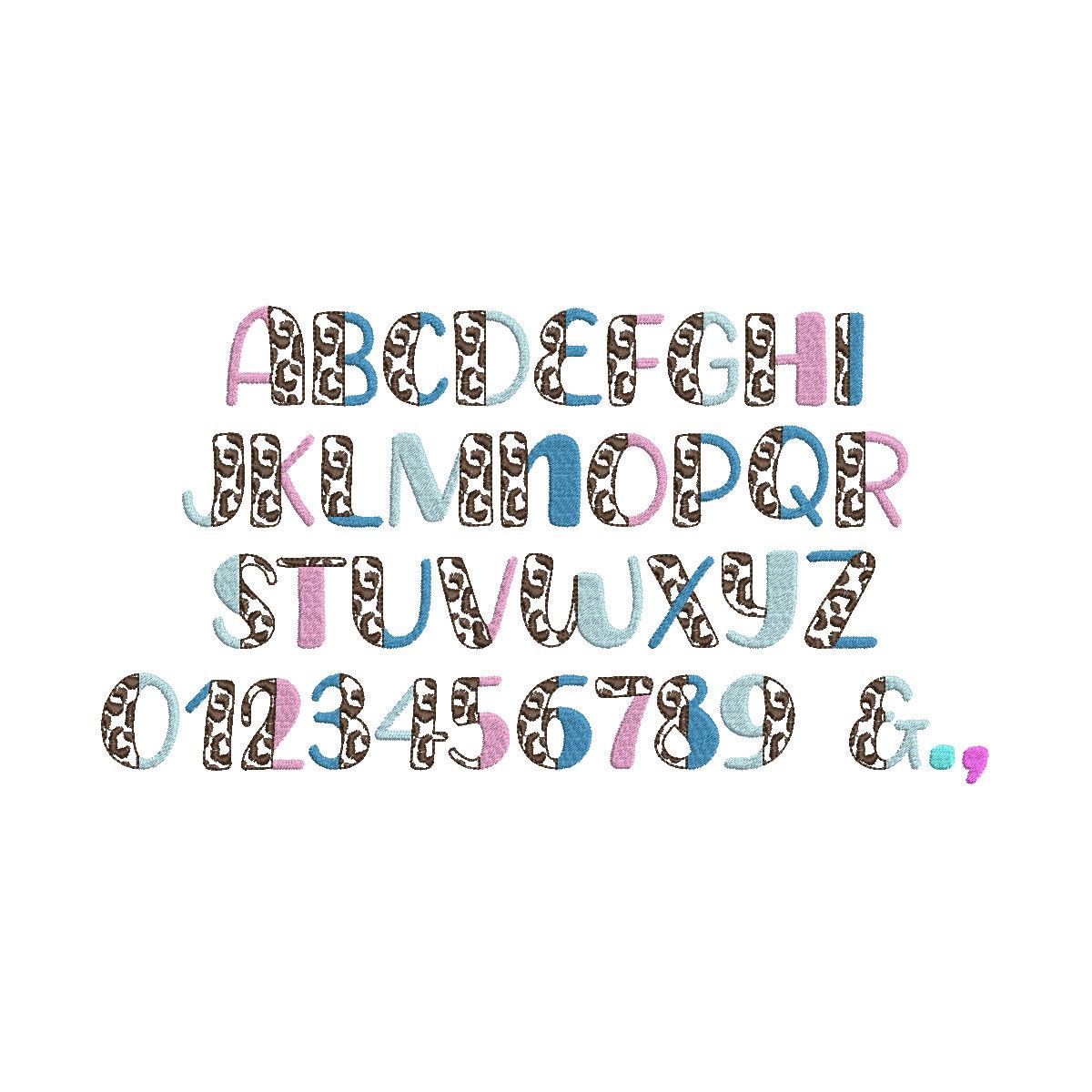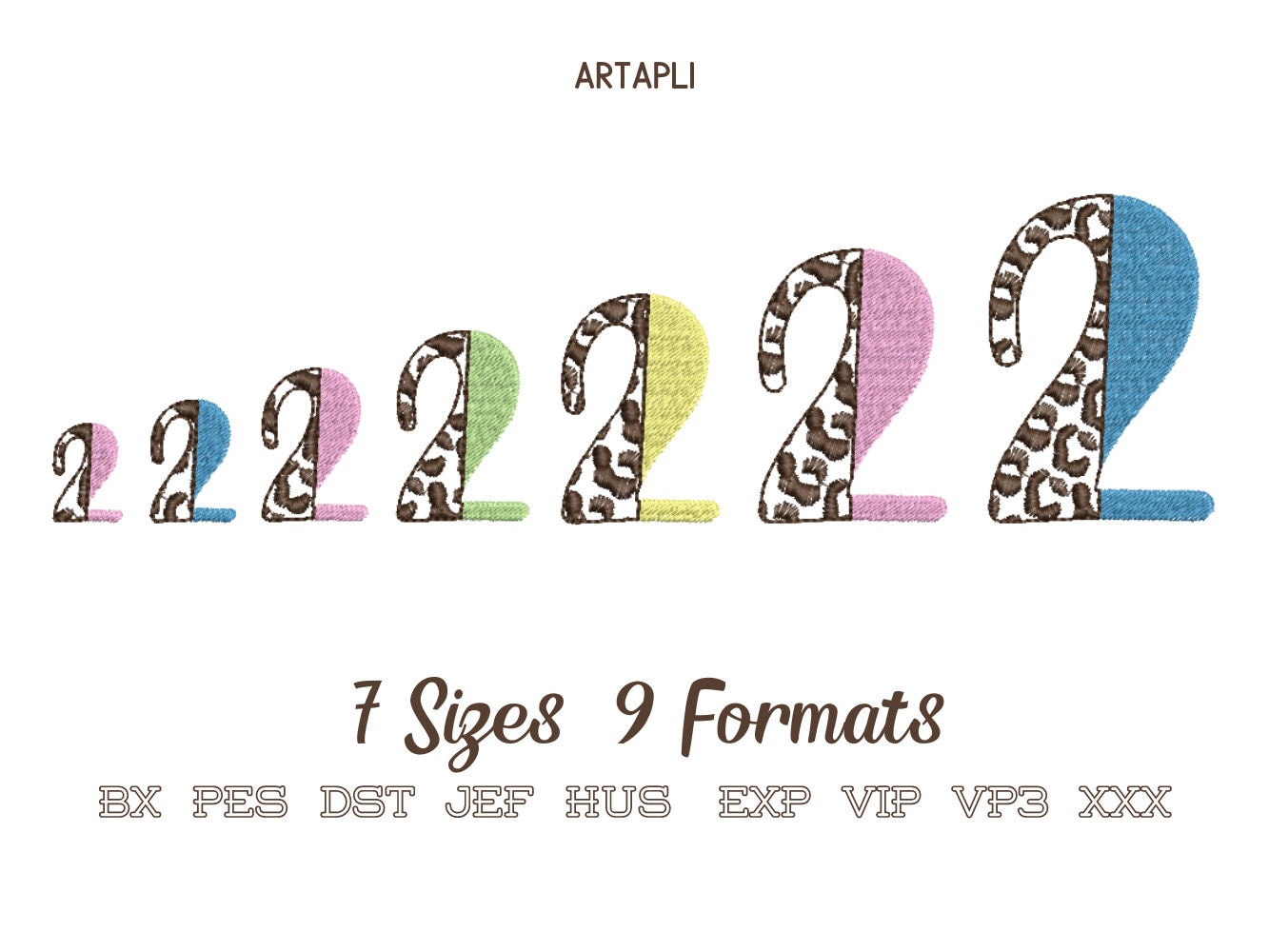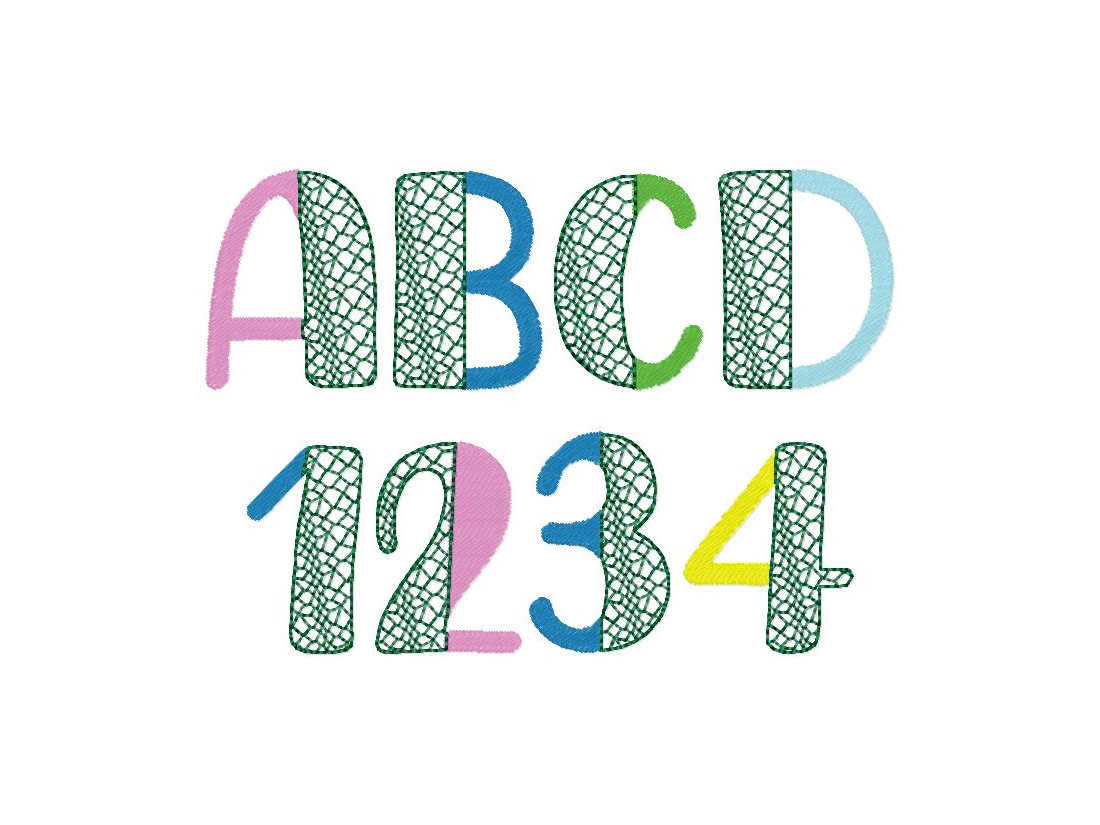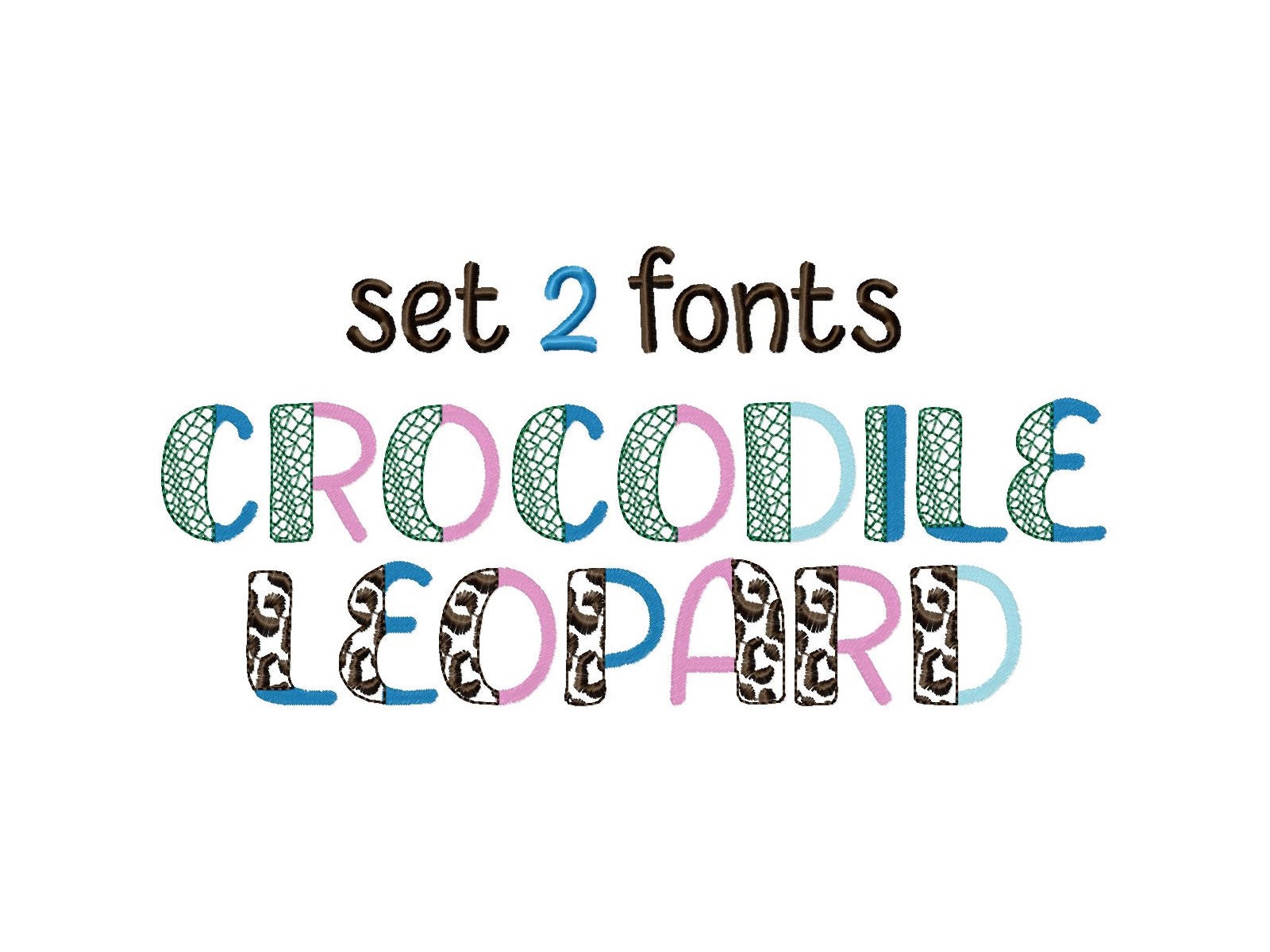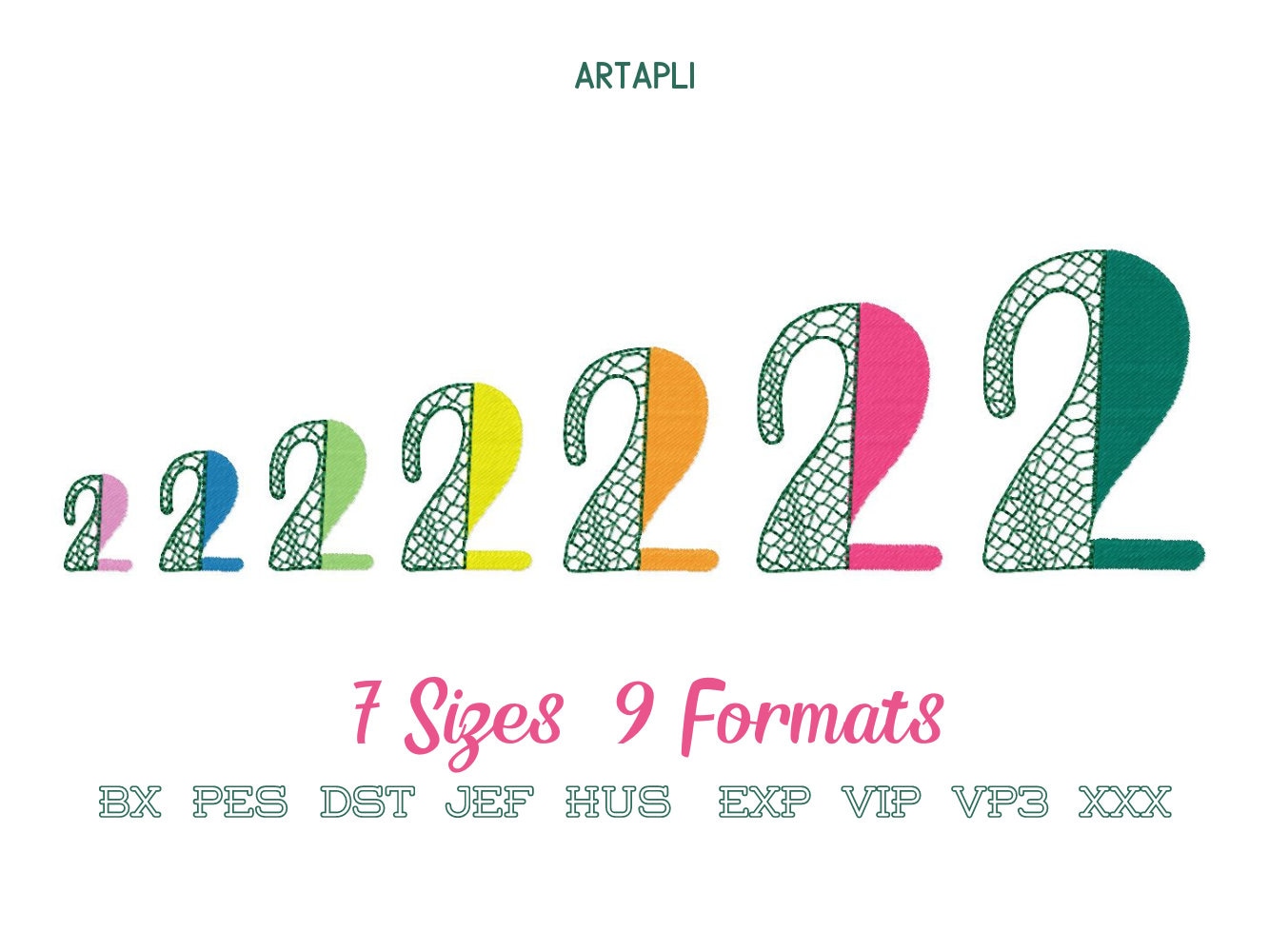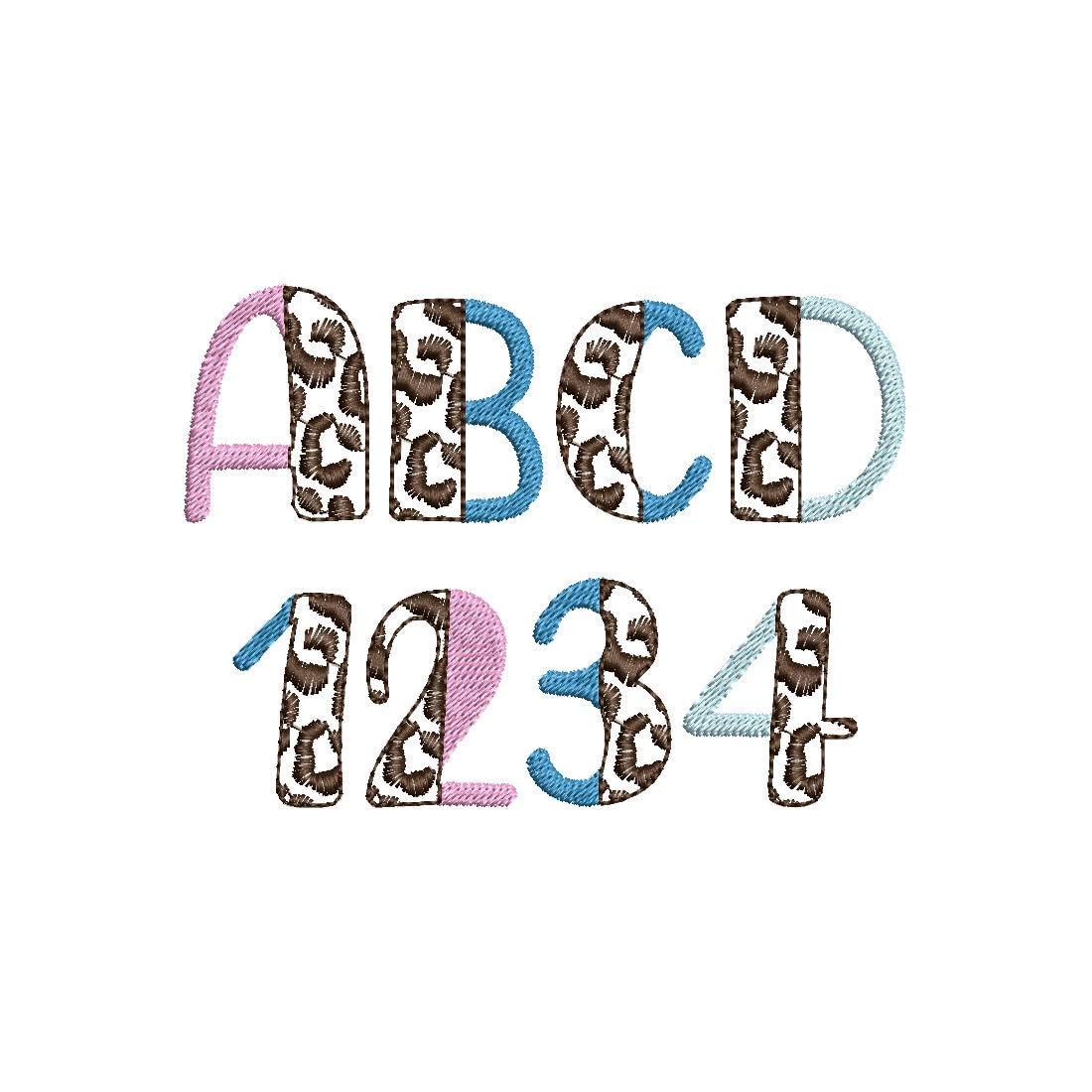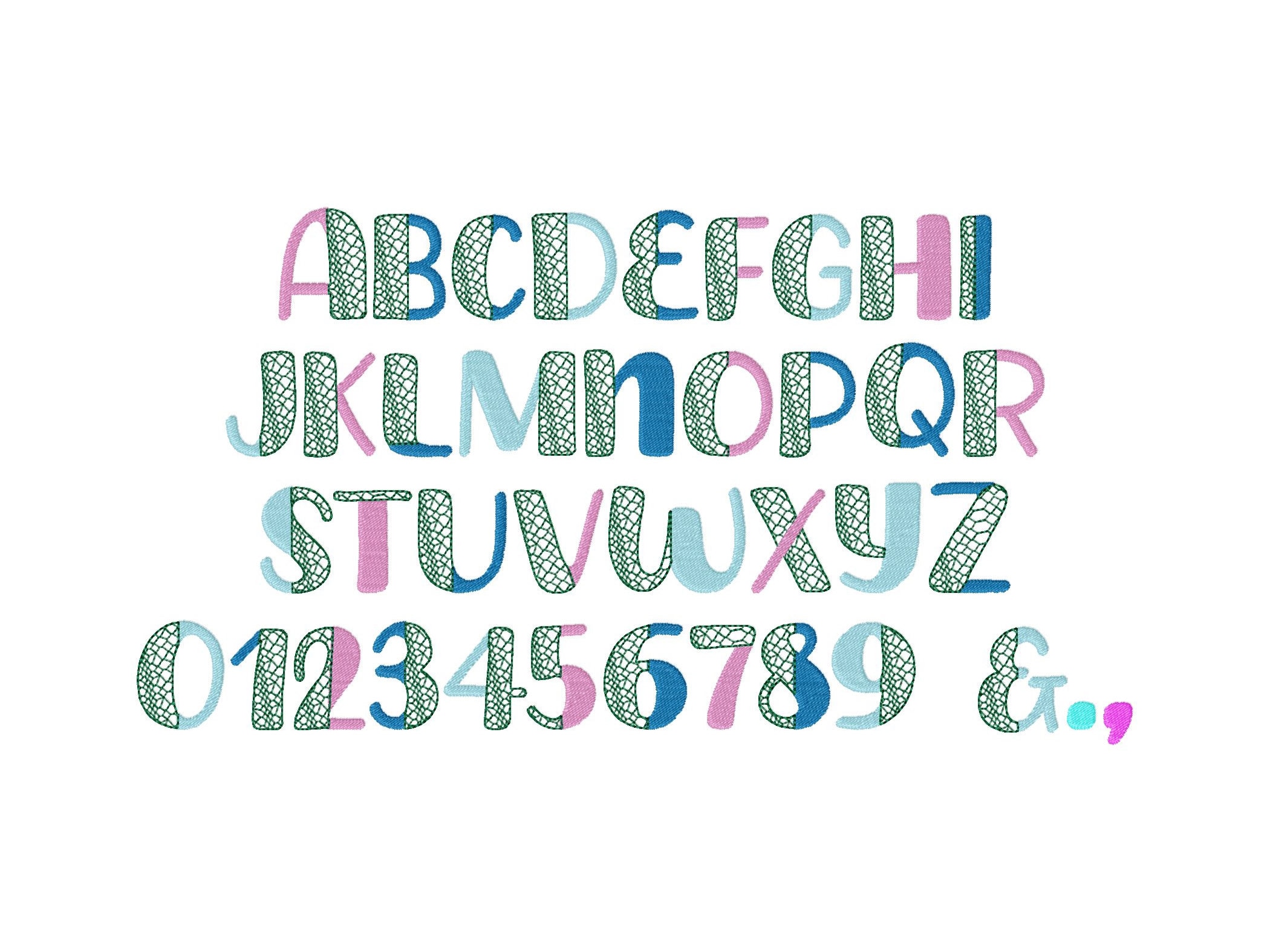
Split Font SET of 2 Crocodile and Leopard print fill stitch Duo font 2 colors alphabet monogram machine embroidery designs 1 up to 3 inches
Set of 2 fonts
* Crocodile print font
* Leopard spots font
The whole alphabet uppercase A-Z, numbers 0-9, and punctuation & . ,
The font has fill stitch on one side, and animal print on the other side.
The part of the crocodile print and leopard spots is transparent, and the background fabric looks through. Stunning effect!
Merge and combine the letters and numbers as you wish. Use different sizes and colors, just play and get awesome results!